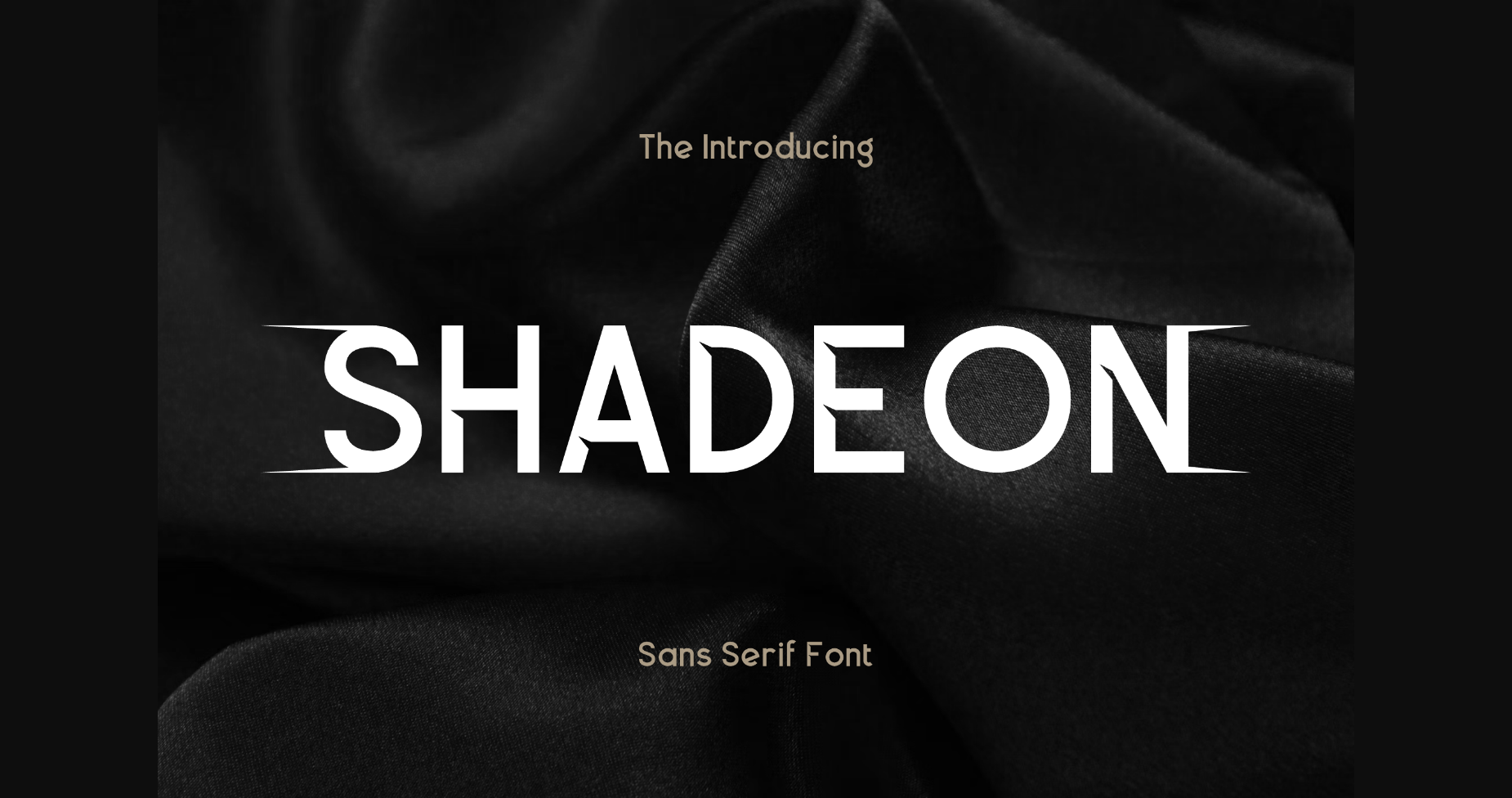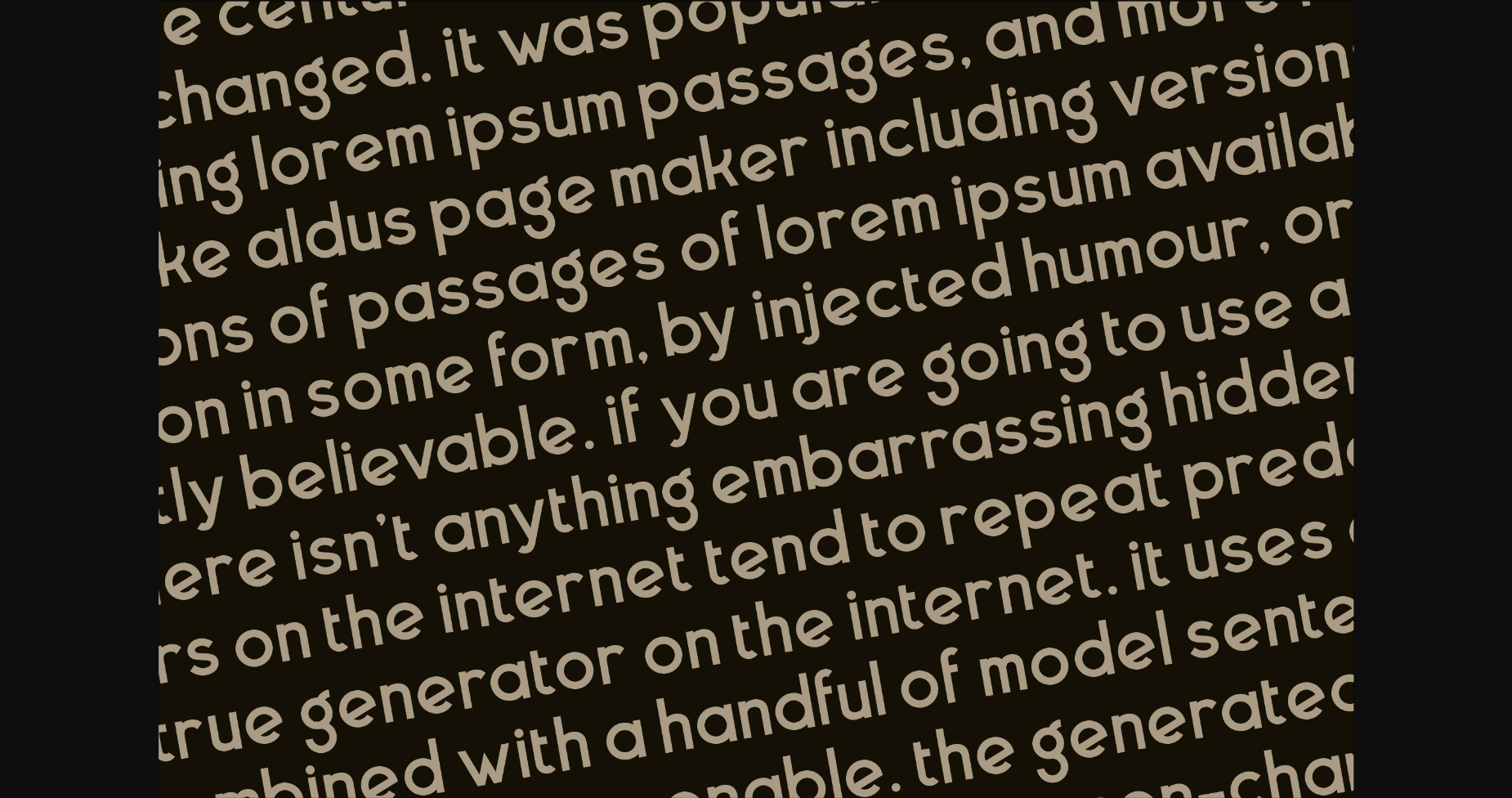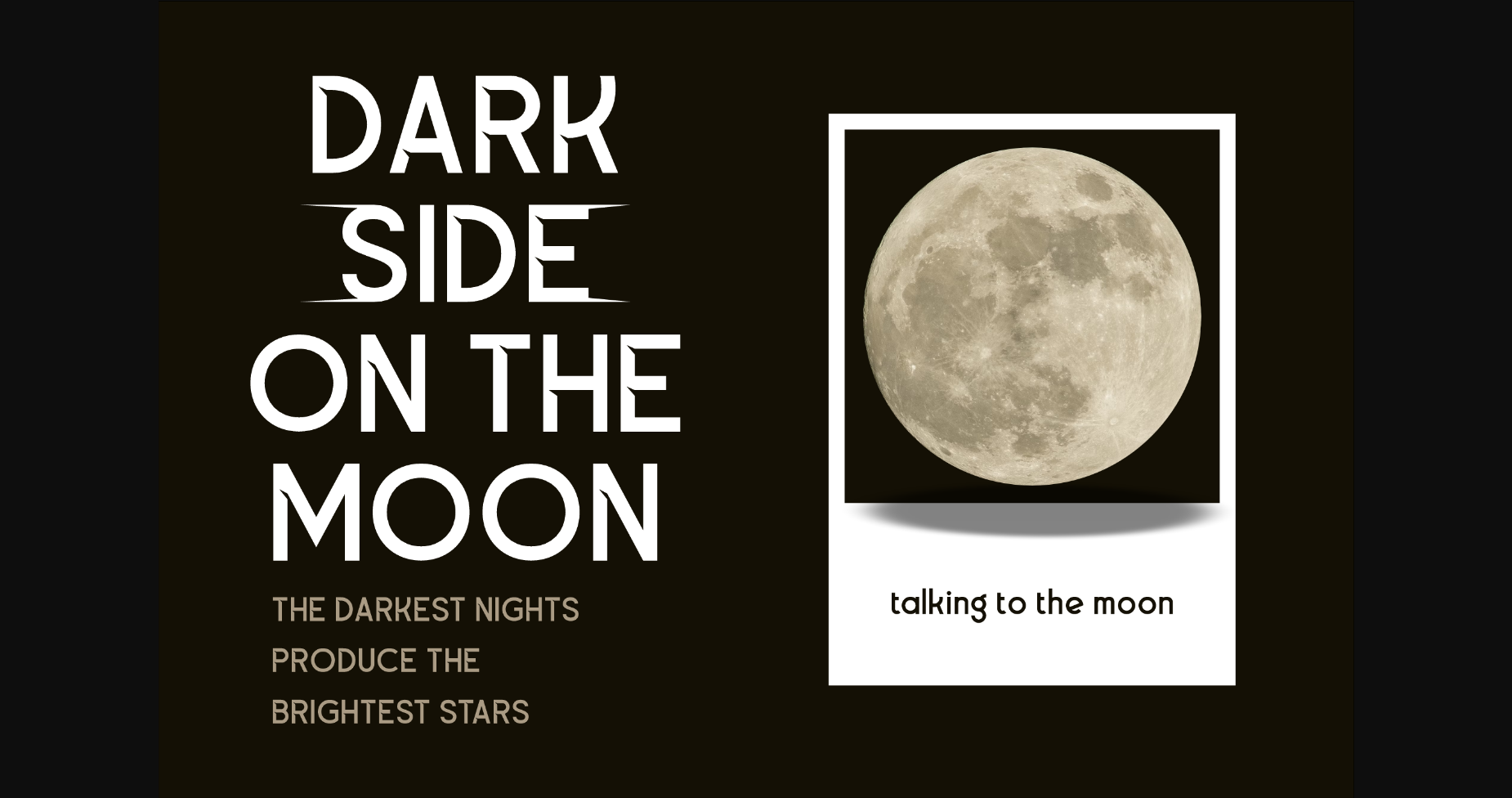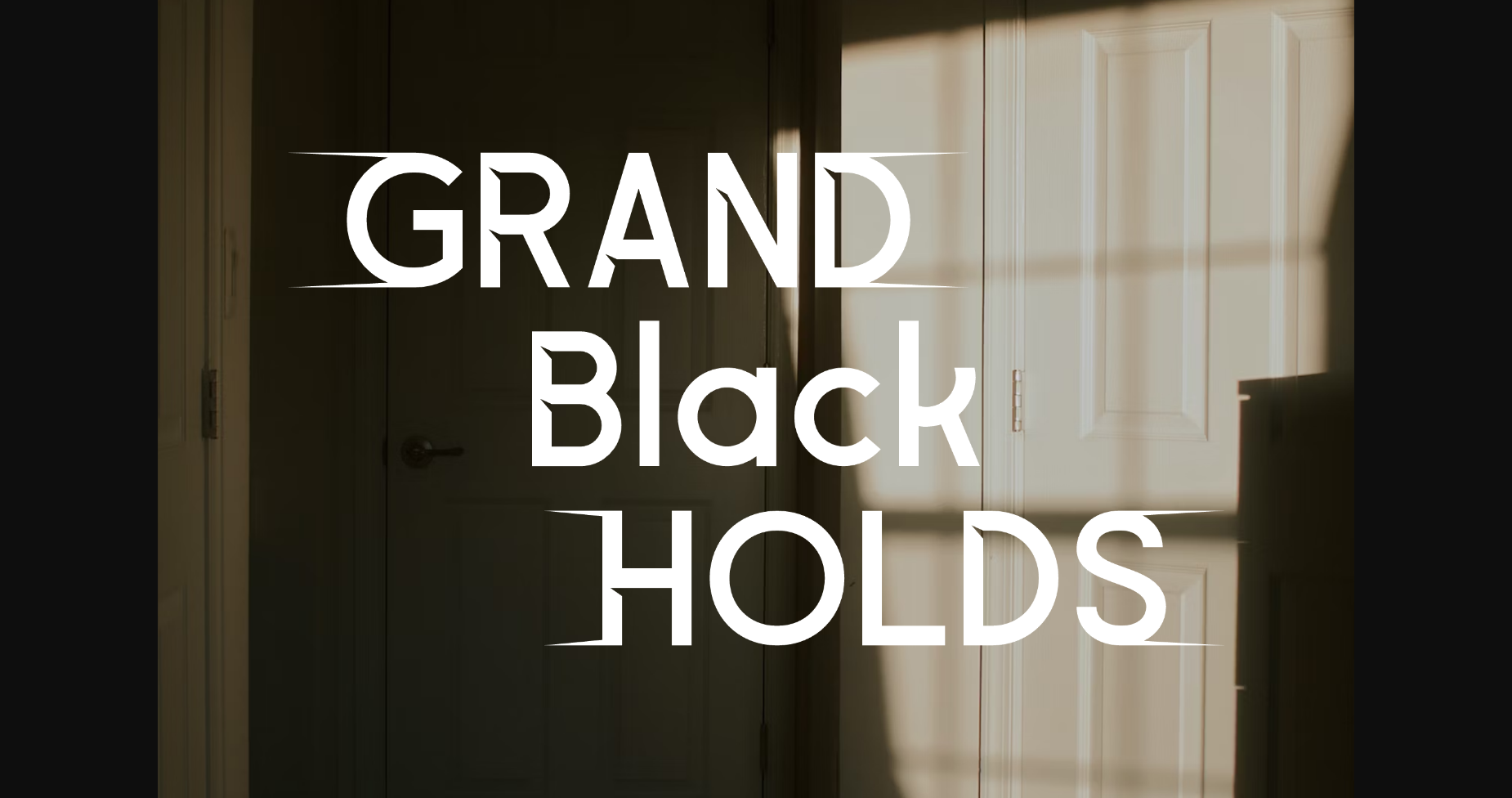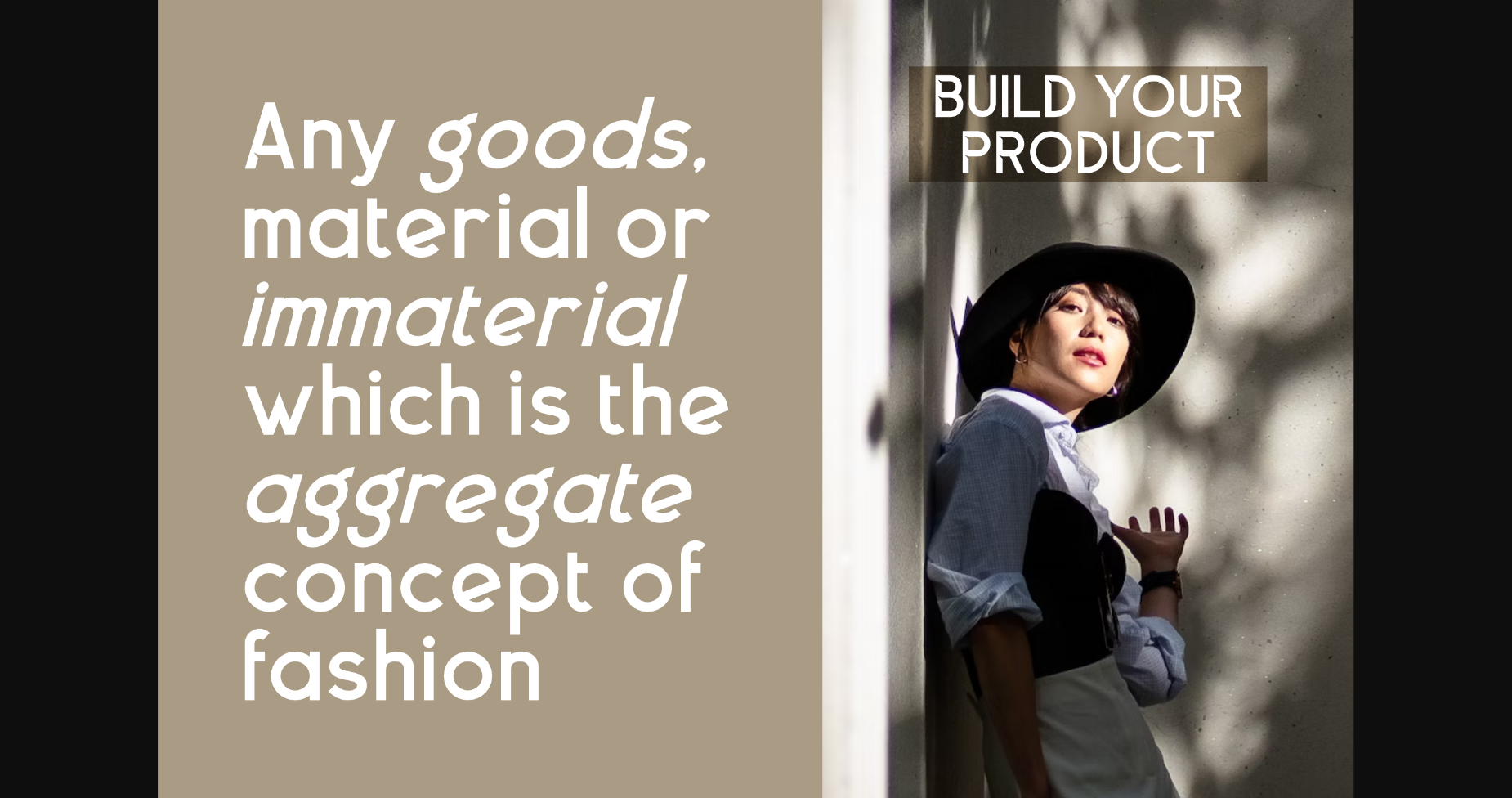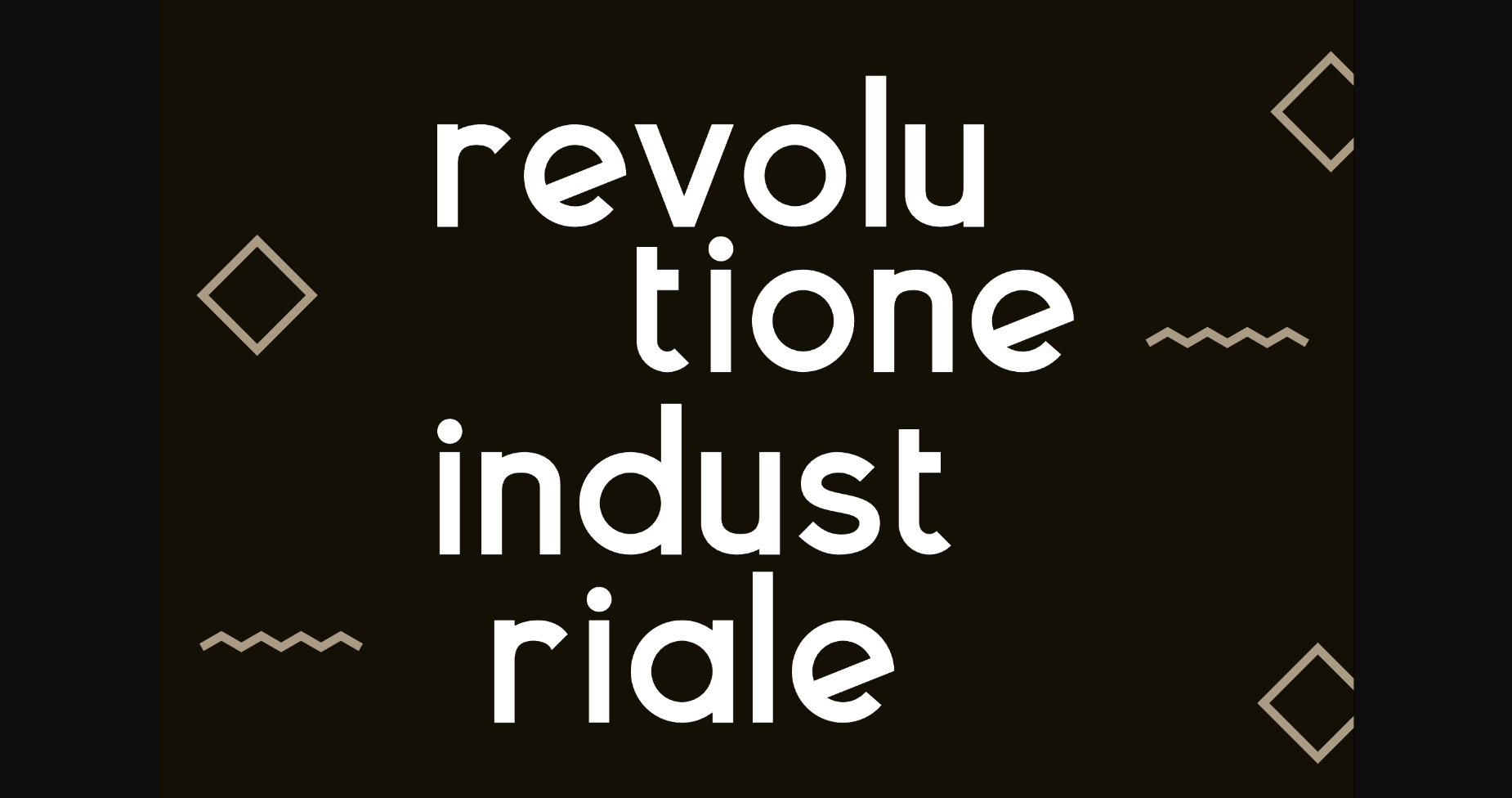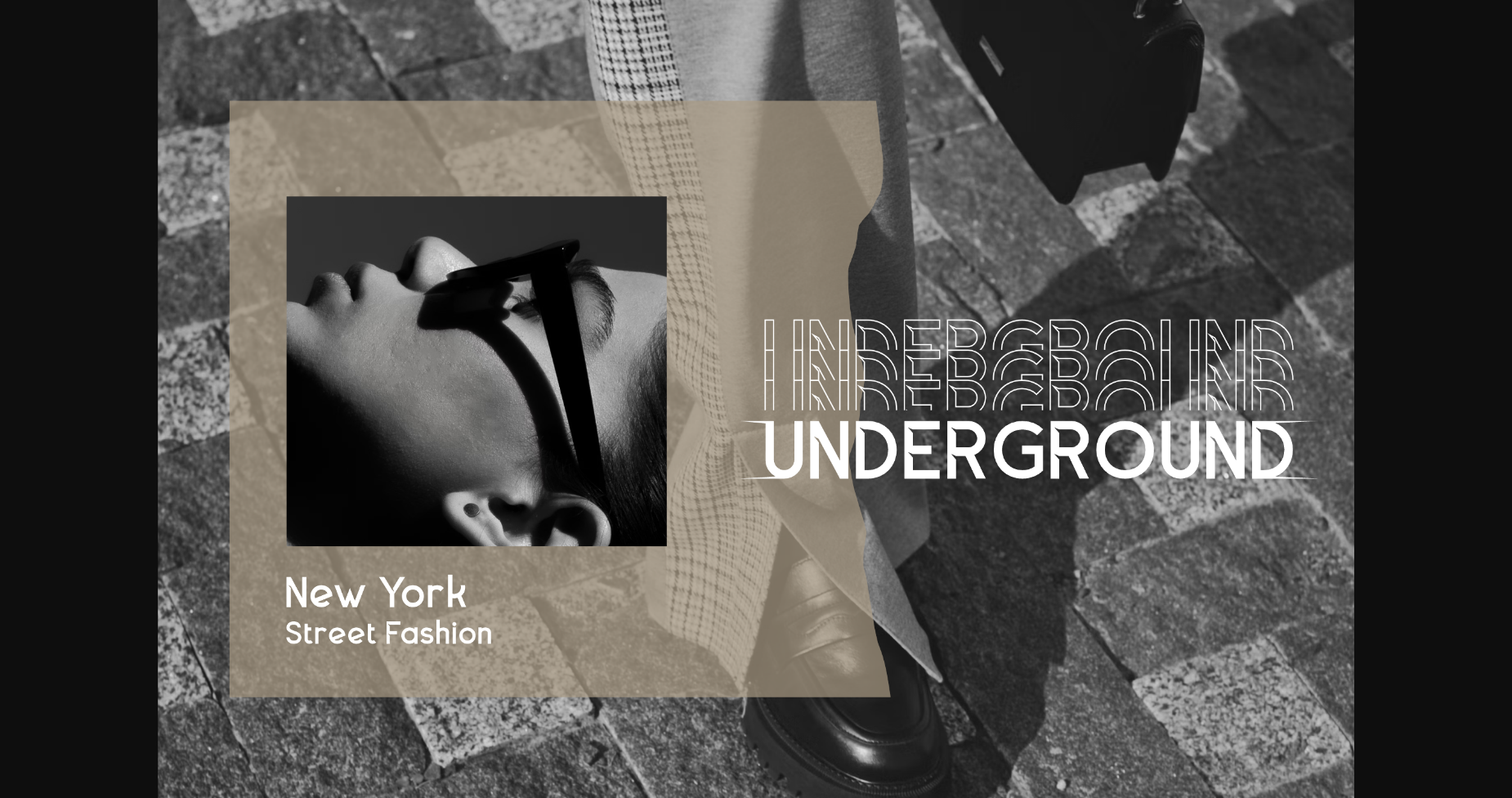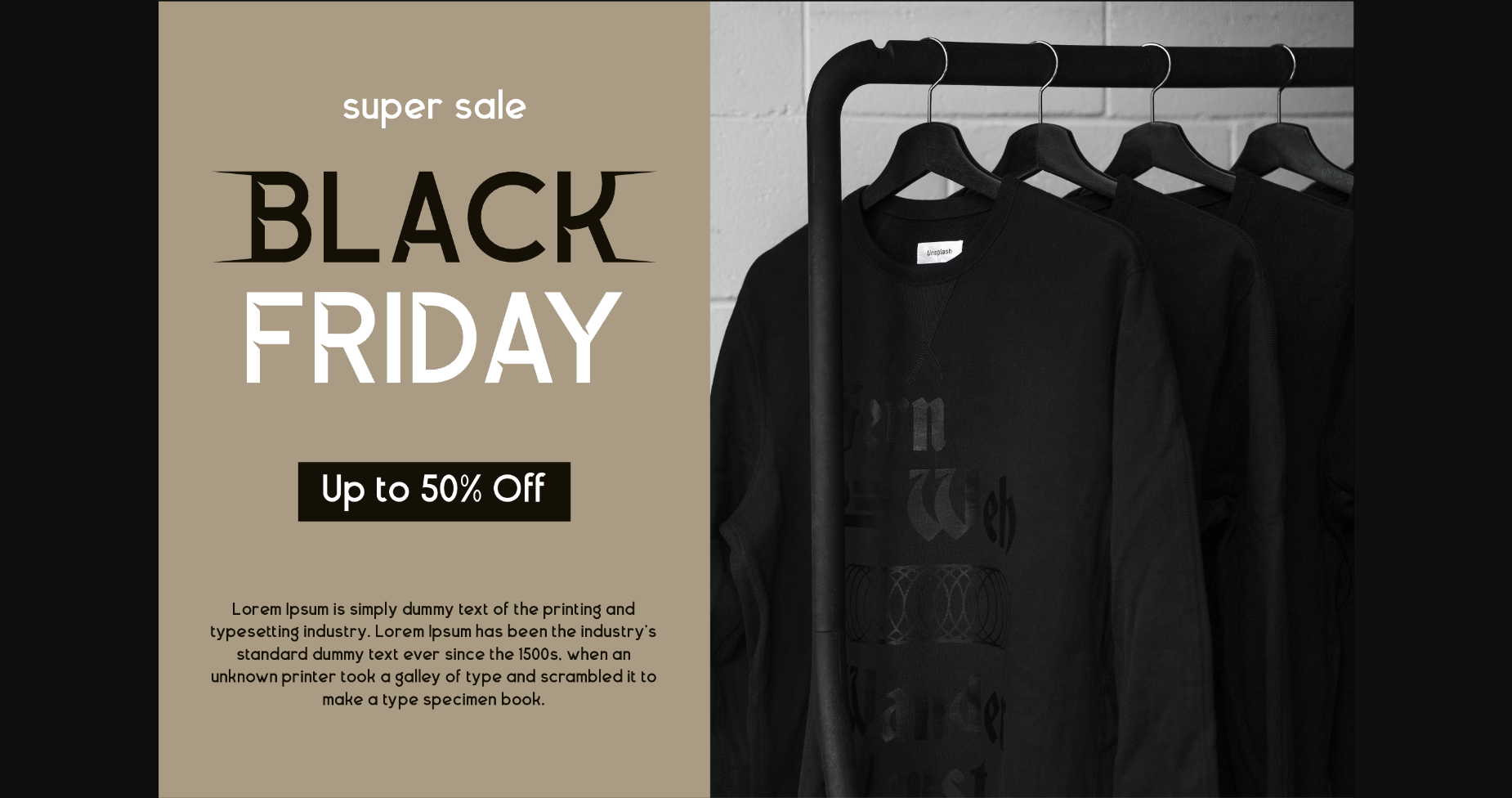
HomeSans Serif FontsShadeon Font Sans Serif Fonts Shadeon Font FacebookXPinterestWhatsApp 1 of 11 ... Shadeon Font Poster 2... Shadeon Font Poster 3... Shadeon Font Poster 4... Shadeon Font Poster 5... Shadeon Font Poster 6... Shadeon Font Poster 7... Shadeon Font Poster 8... Shadeon Font Poster 9... Shadeon Font Poster 10... Shadeon Font Poster 11... About Shadeon Font Shadeon is a modern and classy sans serif font perfect for elegant and luxury logos, book or movie title designs, fashion brands, magazines, clothes, lettering, quotes, and so much more. DOWNLOAD NOW People also explored Rikos Charlety Font London City Edition Font Autoscript Font Wortes Font Coffee Break Font Simple Background Font Ringstun Font Mellson Font 483 0 TagsShadeonShadeon Font Previous articleDigner FontNext articleMasquerco Font LEAVE A REPLY Cancel reply Comment: Please enter your comment! Name:* Please enter your name here Email:* You have entered an incorrect email address! Please enter your email address here Website: Save my name, email, and website in this browser for the next time I comment. Personal Use Free Dealisya Personal Use Free Read more about this font Die Nasty Personal Use Free Read more about this font Banana Valentine Personal Use Free Read more about this font Pelmeshka Personal Use Free Read more about this font BLOG How to Cut Any Font on Cricut: Convert a Font to SVG (Free) Turn any font into a clean SVG so it cuts crisp on Cricut - a quick 3-step workflow using a free font-to-SVG tool. Transform Your Website: Elevate Your Typography with 7 Best Web Font Generators Exploring Font Trends Top 7 Google Fonts Alternatives for Faster and Privacy-Friendly Web Design (2025)